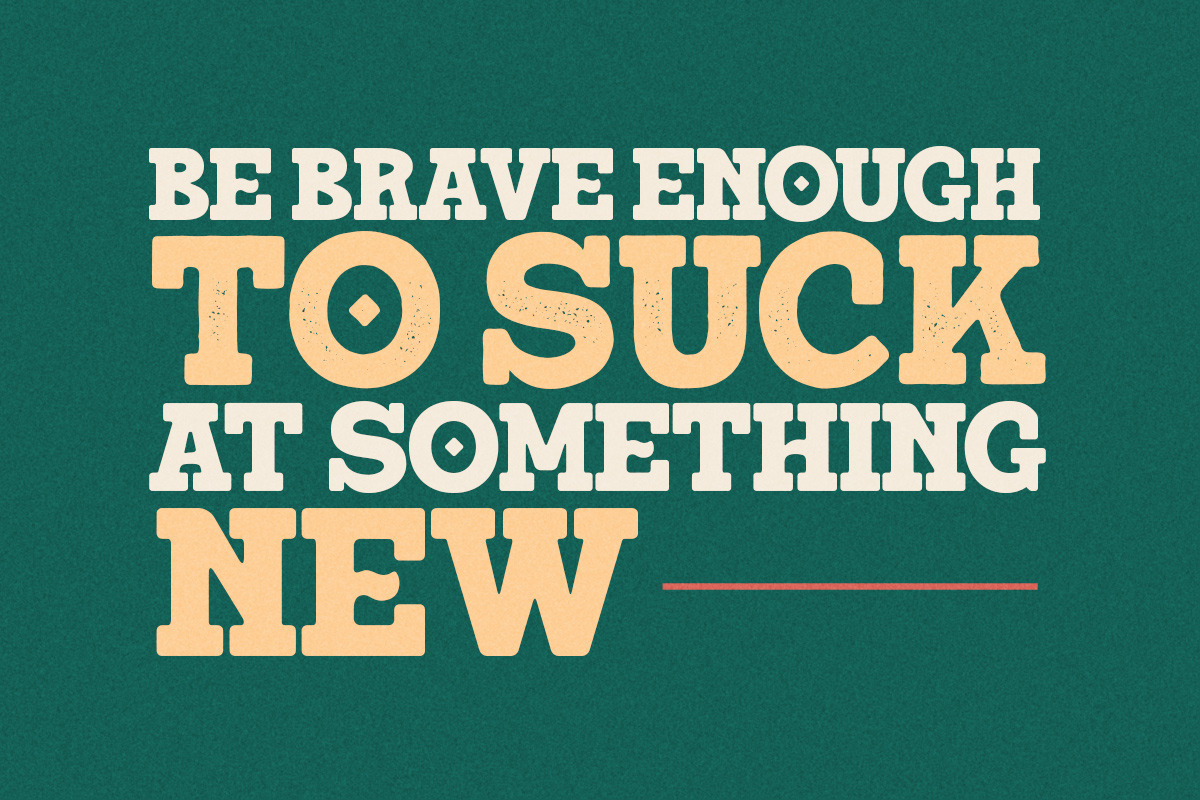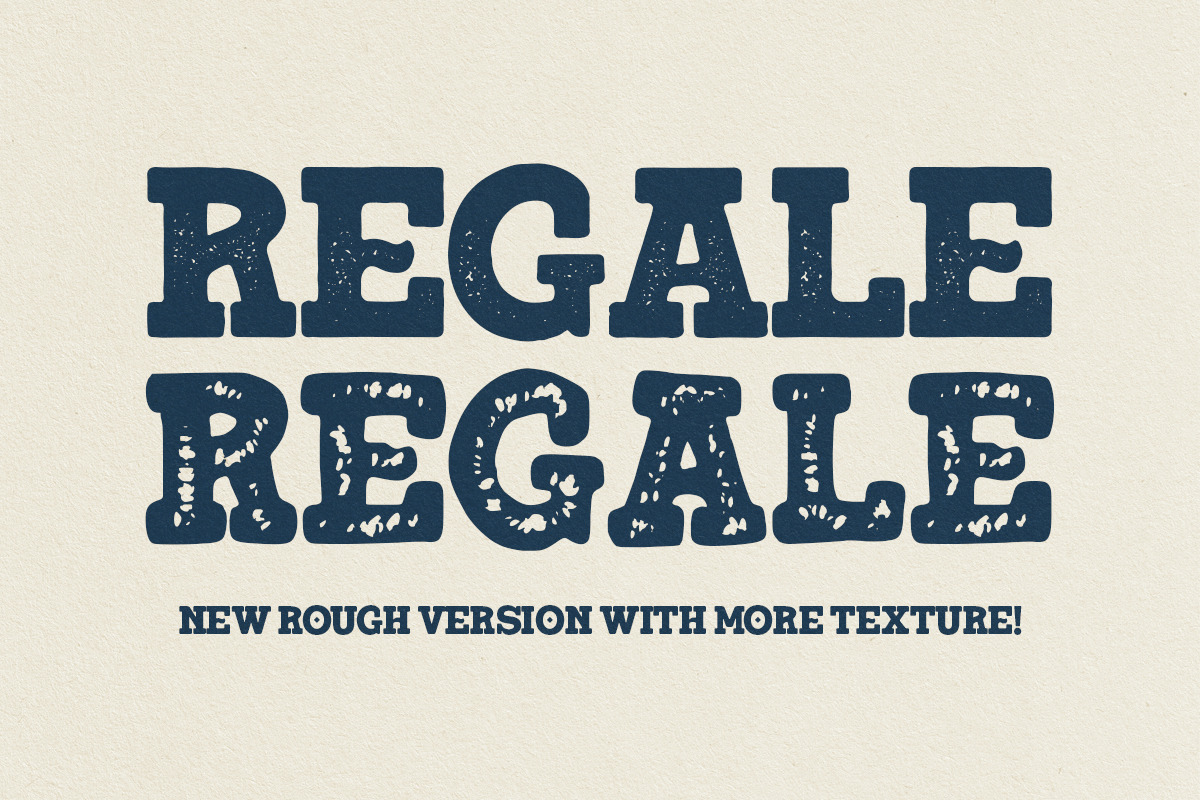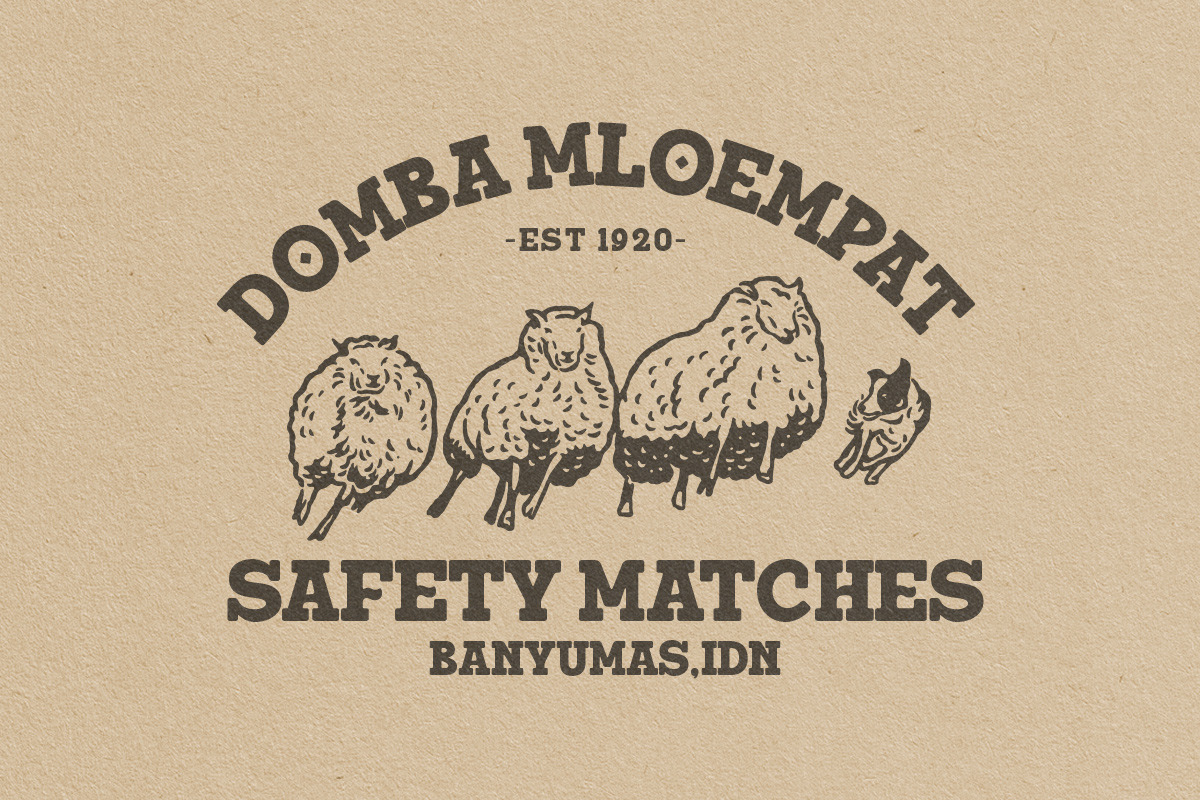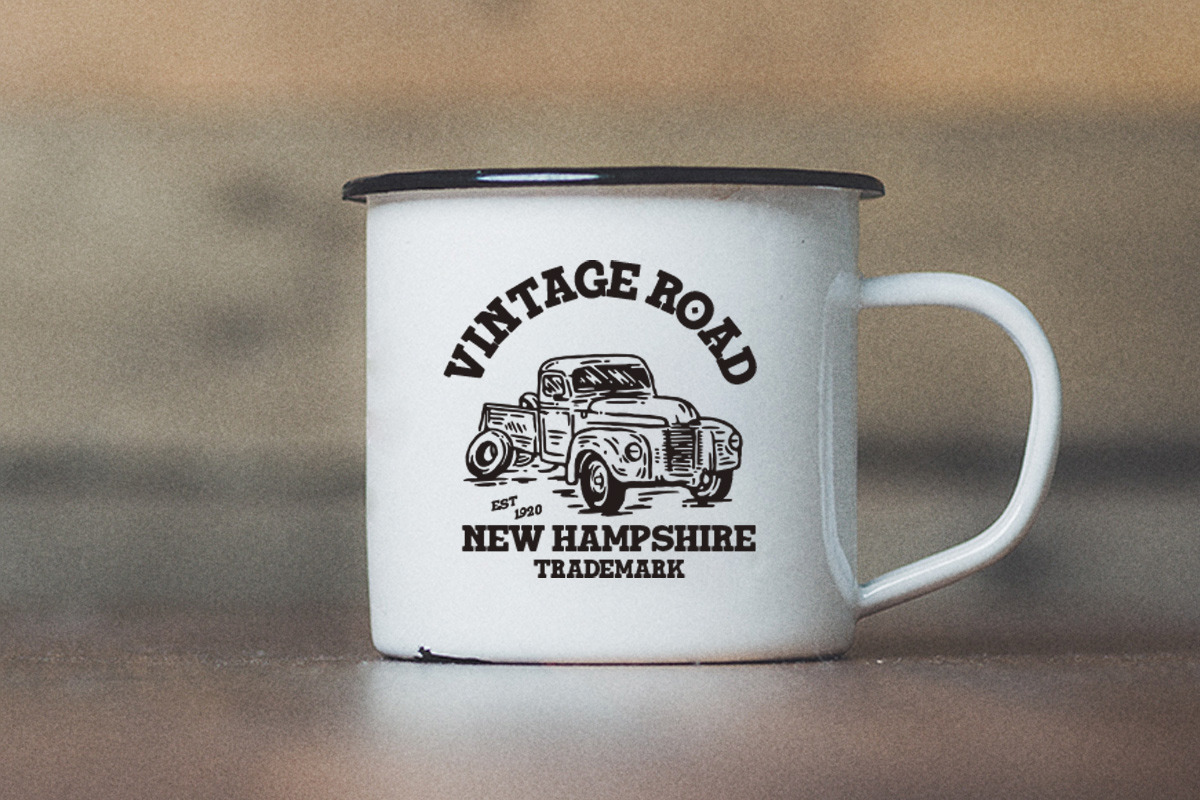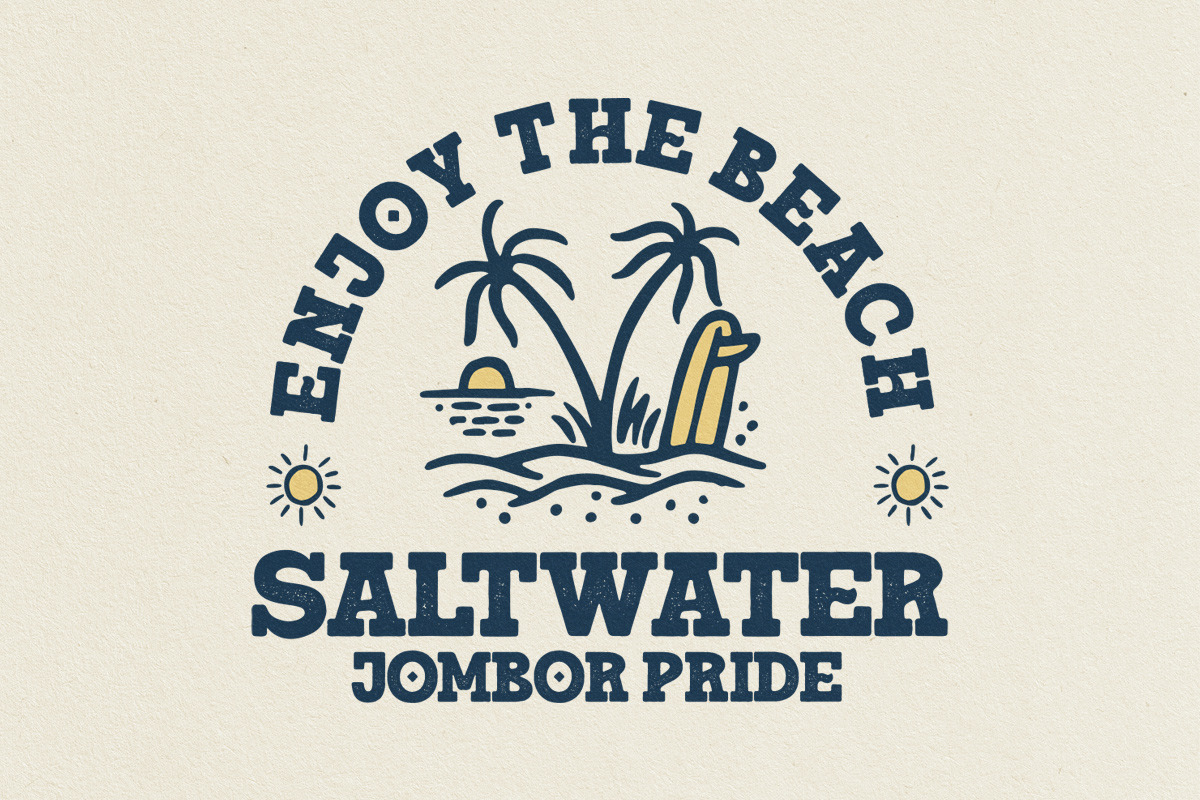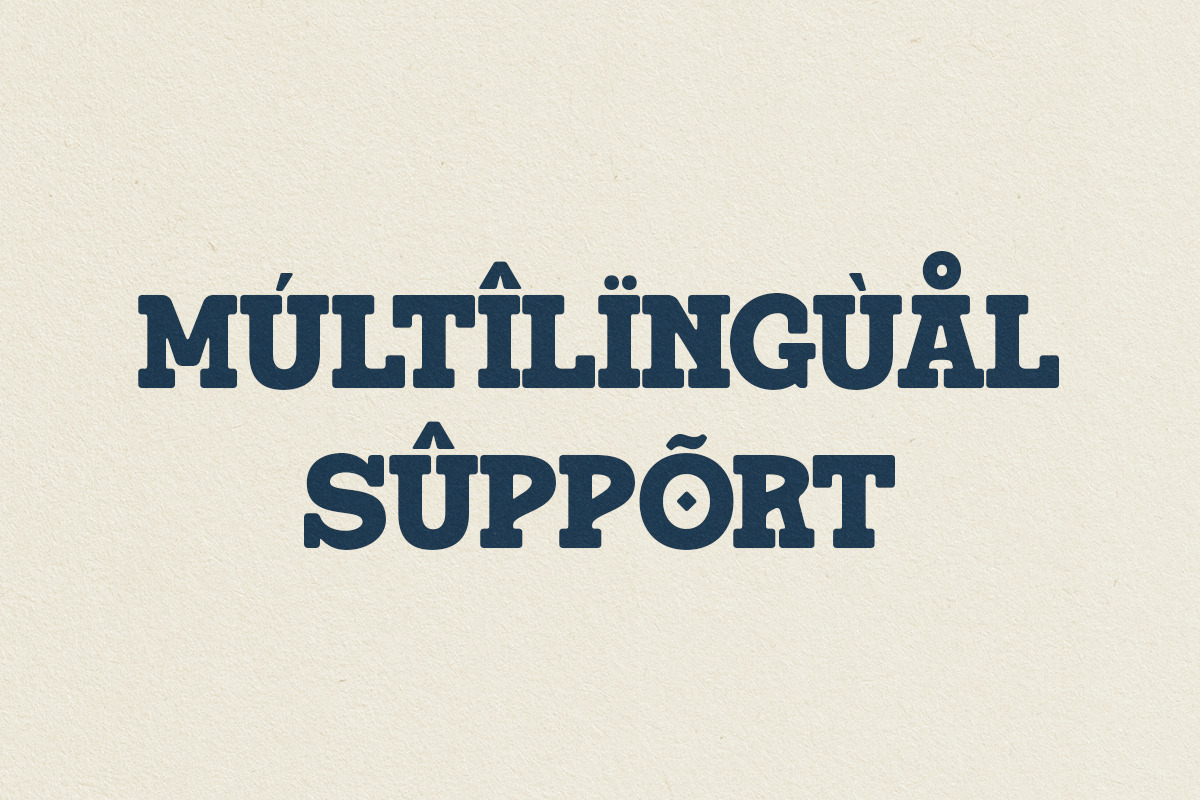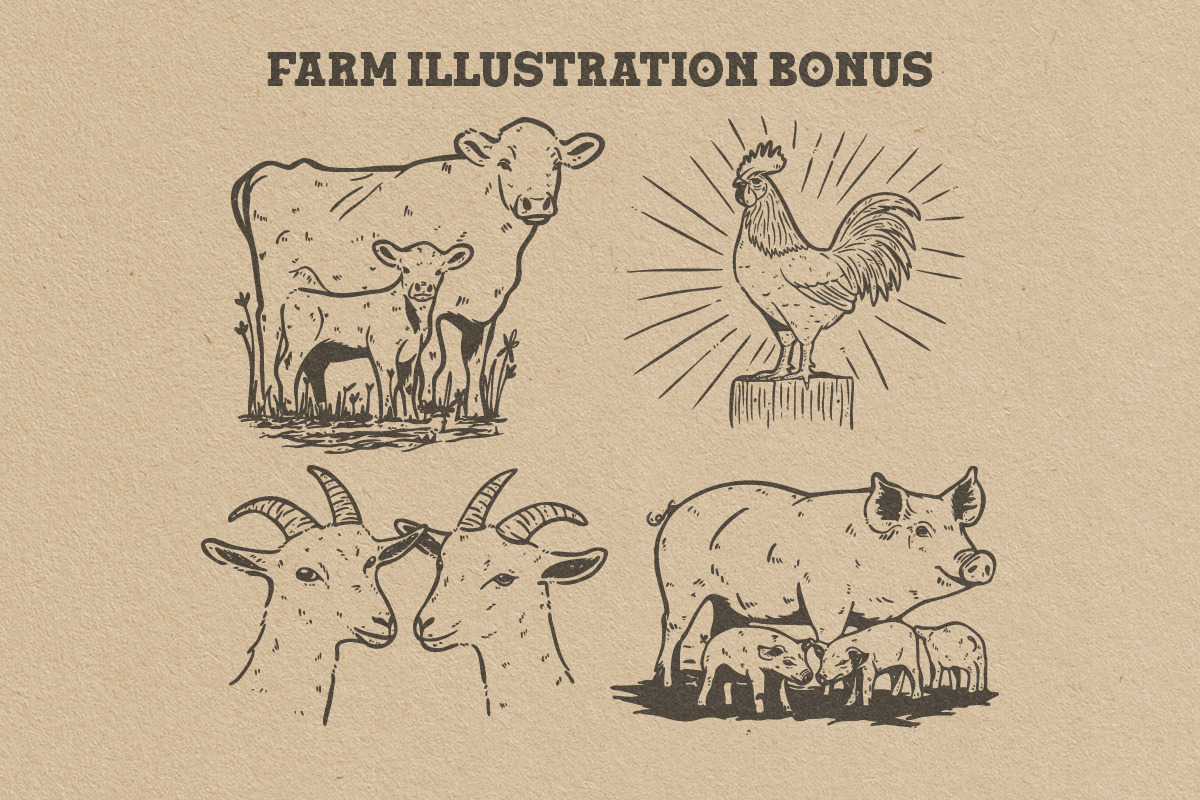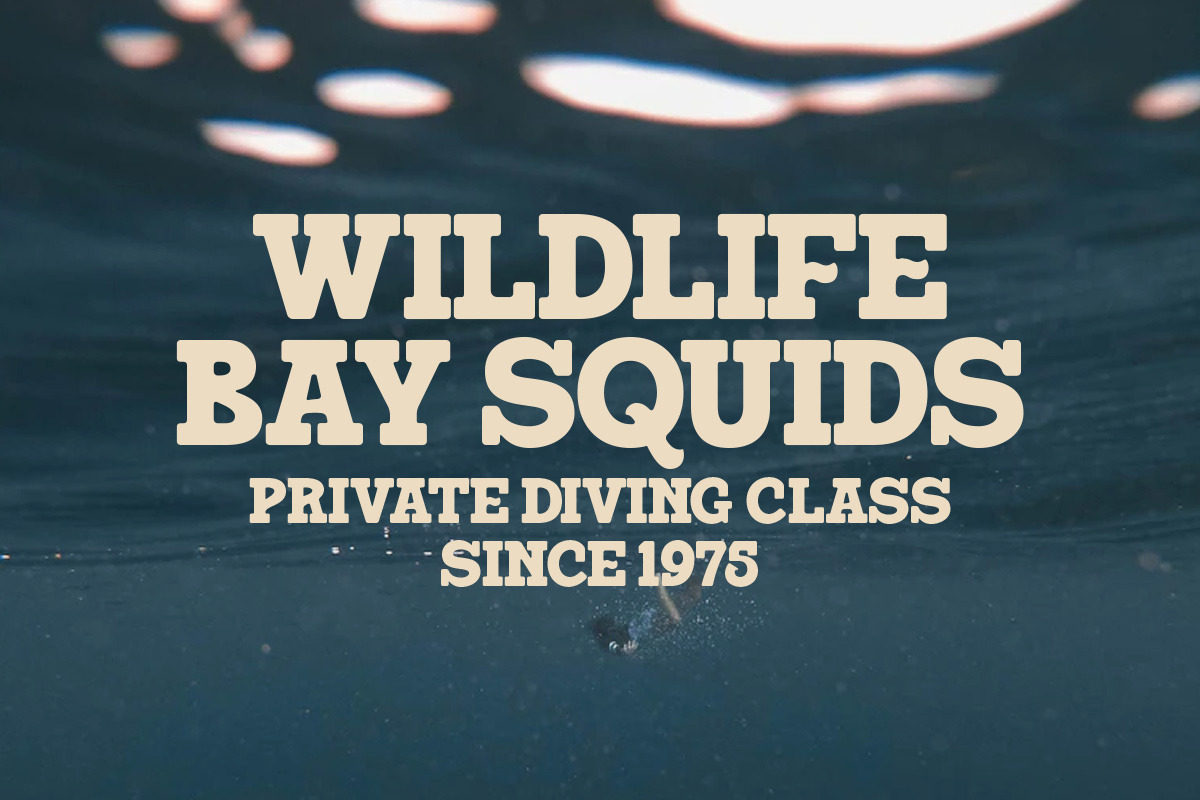
South Montana - Slab Serif
Introducing South Montana – a bold slab serif that is perfect for any project. This font comes in both regular and rough styles, with the new version 1.0 featuring an updated Rough v2 with more textured details for a more dynamic and rugged look. South Montana is ideal for branding logos, badge designs, apparel designs, and more.
In addition, this update includes 4 bonus farm illustrations, giving you extra design assets to enhance your creative work. The font also offers multilingual support, making it versatile for various projects.